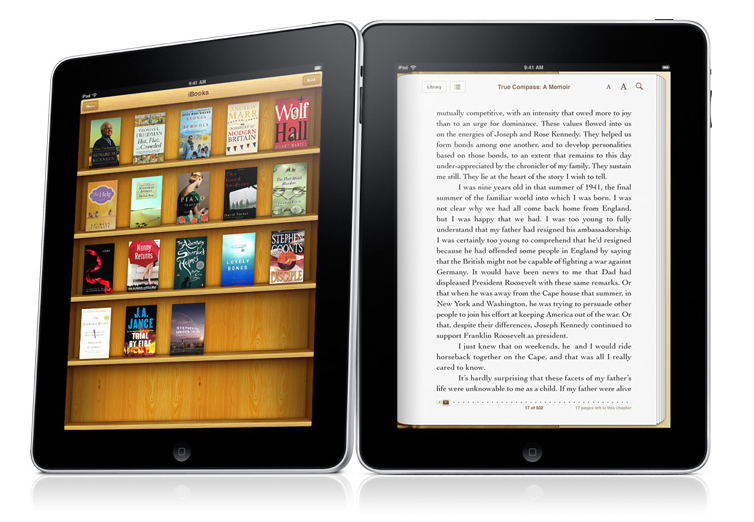
What do we know? Apple, as far as I know, has issued only the one press release on the day of the product’s announcement, January 27. I wrote to the media center asking for more detail on the iBook application and the fonts that might be part of the iBook reader software. I was advised to continue to read the press release until the product is available.
Let’s Take a Look
As you can see in the photo (Courtesy of Apple) the iBookstore looks pretty much like every other eReader portal. The metaphor of the bookshelf is apparently too strong for any designer to resist. And that makes sense, because every user will recognize it and know what it represents.
The bookshelf also helps to display the book covers, which make us feel as if we’re reading actual books. We know the iBooks will look more like printed books than they do on any other eReader out there, complete with a great animation of a page turning over.
Obvious care has gone into rendering the shelves, the covers, the virtual book itself, giving it a real sense of a physical dimension. The page you see in this photo is attractive as well. I’m guessing this is the Baskerville font seen on the snap of the iPad’s reading software. It’s clearly the best font for actually reading books on the list.
Although the paragraph indents are pretty deep, they’re in balance with the line length, so there’s nothing troubling the eye. You can also see, as in other photos, that the lack of any hyphenation has left the page with large gaps between words. That’s pretty unattractive.
The Fonts. What About the Fonts?
This is the list of fonts that seem likely to be available in the iBook reader app:
- Baskerville
- Cochin
- Palatino
- Times New Roman
- Verdana
Here’s my idea: Let’s pretend we’ve been given the power to pick the fonts for this software. Each of us will have to come to a meeting with a list of three fonts, and the ones selected will be the fonts that get the most “votes” by appearing on the most lists. Game?
First I’m going to throw Cochin, Palatino, Times and Verdana off the list. If we are going to be reading books here, I think we can agree we won’t be needing these fonts at all.
Here are the three I’m going to put on my list, and why:
- Janson text—this oldstyle face is great for long documents. It’s a favorite of book designers for a good reason. Although it has plenty of eccentricity in its details, the page it produces is smooth and easy to read. A real winner.
- Garamond—pretty much a no-brainer, I like the Adobe version, but Garamonds of many varieties have been among the most used book typefaces for several hundred years. The roundness and harmony of the letterforms make it perfect for books.
- Bodoni—another more modern face, and a complement to the Baskerville we left on the list. As opposed to the two oldstyle typefaces nominated above, these modern typefaces give a completely different color and a more vertical emphasis to the page due to their contrasting strokes. Beautiful reading for the right book.
I could have certainly selected from many other worthwhile and beautiful examples of typefaces from centuries of book design. Perhaps on my personal iPad I’d like to have Bembo as well, although I think the other oldstyles, Janson and Garamond, might display better on screens.
What I’m trying to get at here is that there are many, many better choices for fonts for the iPad’s new iBook application than the ones we’ve seen so far.
Well, I’m interested in your lists. Are you coming to my iPad type font selection meeting? What’s on your list?
Takeaway: Fonts on the upcoming Apple iPad’s new iBook reader application desperately need improvement. Better fonts will enhance the display and reading enjoyment of the new iBooks.